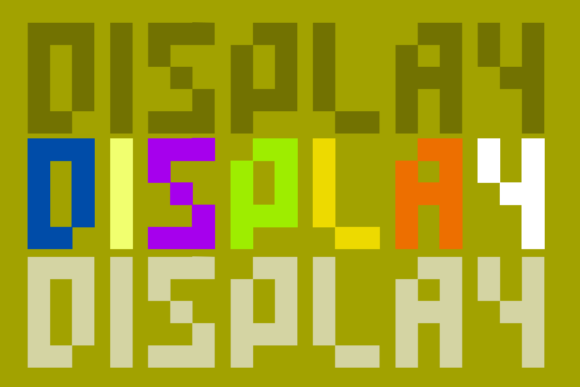
The Blocketo Font: A Fun and Original Display Font for Your Designs
Have you ever been in the middle of a design project, and suddenly, you just can’t seem to find the right font? I know I have. It was a few months ago when I was working on a retro videogame-inspired poster. My client wanted something that would transport their audience back to the 8-bit era, but I was struggling to find a font that captured that nostalgic feel. That’s when I stumbled upon the Blocketo font. Let me tell you, it was love at first sight! 😍
An Honest Review of Blocketo Font
What I Love About Blocketo Font
• ✨ Unique and original design: Blocketo font is a one-of-a-kind display font that will make your designs stand out from the crowd.
• ✅ Perfect for retro-themed designs: The font’s blocky, pixelated style is reminiscent of old-school videogames, making it ideal for retro-themed posters, flyers, and more.
• 🎉 Highly versatile: Blocketo font can be used for a wide range of design projects, from posters and flyers to social media graphics and even merchandise.
While I absolutely love Blocketo font, there are a few things to keep in mind:
• 🤔 Legibility at small sizes: As with many display fonts, Blocketo can be a bit tricky to read at smaller sizes. Make sure to use it at larger sizes (at least 24-30 points) for optimal legibility.
• ⚠️ Limited use for body text: Due to its bold, blocky design, Blocketo font is not suitable for body text or long paragraphs. Stick to using it for headings, titles, or short bursts of text.
The Backstory Behind Blocketo Font
Blocketo font was created with the goal of capturing the nostalgic feel of old-school videogames. The designer, inspired by the blocky, pixelated graphics of classic games, set out to create a font that would transport audiences back to the 8-bit era. The result is a unique and original display font that’s perfect for retro-themed designs.
Q: What type of designs is Blocketo font best suited for?
A: Blocketo font is perfect for retro-themed designs, such as posters, flyers, social media graphics, and merchandise inspired by old-school videogames.
Q: Can I use Blocketo font for body text?
A: No, Blocketo font is not suitable for body text or long paragraphs. It’s best used for headings, titles, or short bursts of text.
Q: Is Blocketo font available in different styles or weights?
A: While Blocketo font may not have multiple styles or weights, it does offer OpenType features, such as glyphs and stylistic alternates, to add more personality to your text.